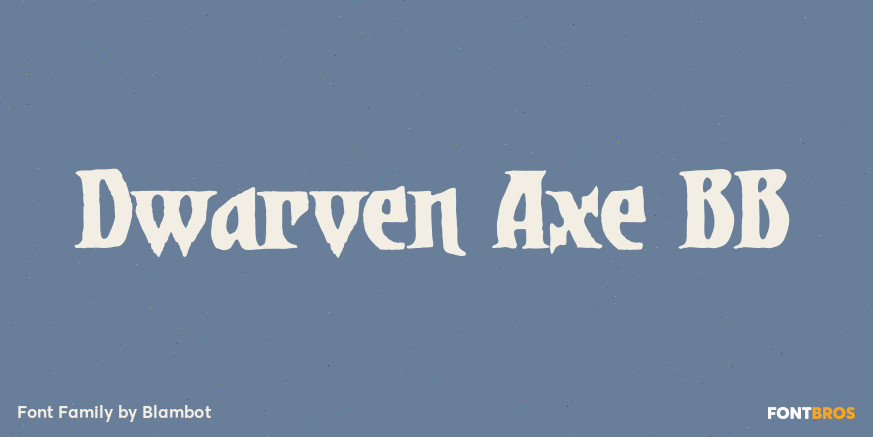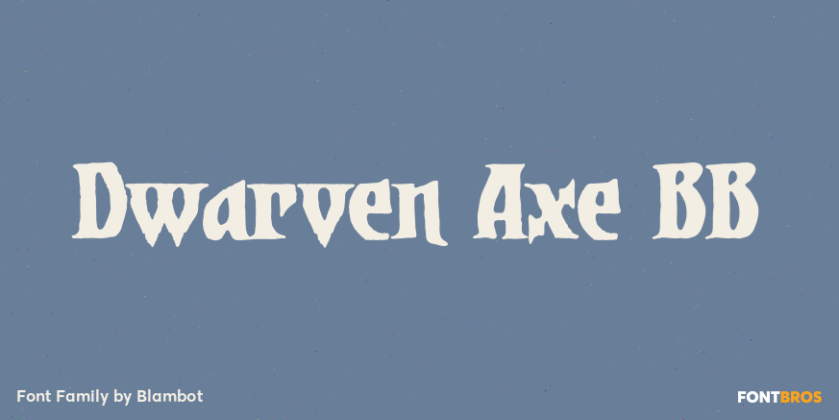
Dwarven Axe BB
About Dwarven Axe BB
Dwarven Axe is a weathered, serif title font with grit and stamina. It\’s the rusty sign outside an inn full of hobbits?it\’s the worn brass letters on the cover of a wizard\’s spellbook?it\’s the inscription on the battle axe hanging over the dwarf king\’s…